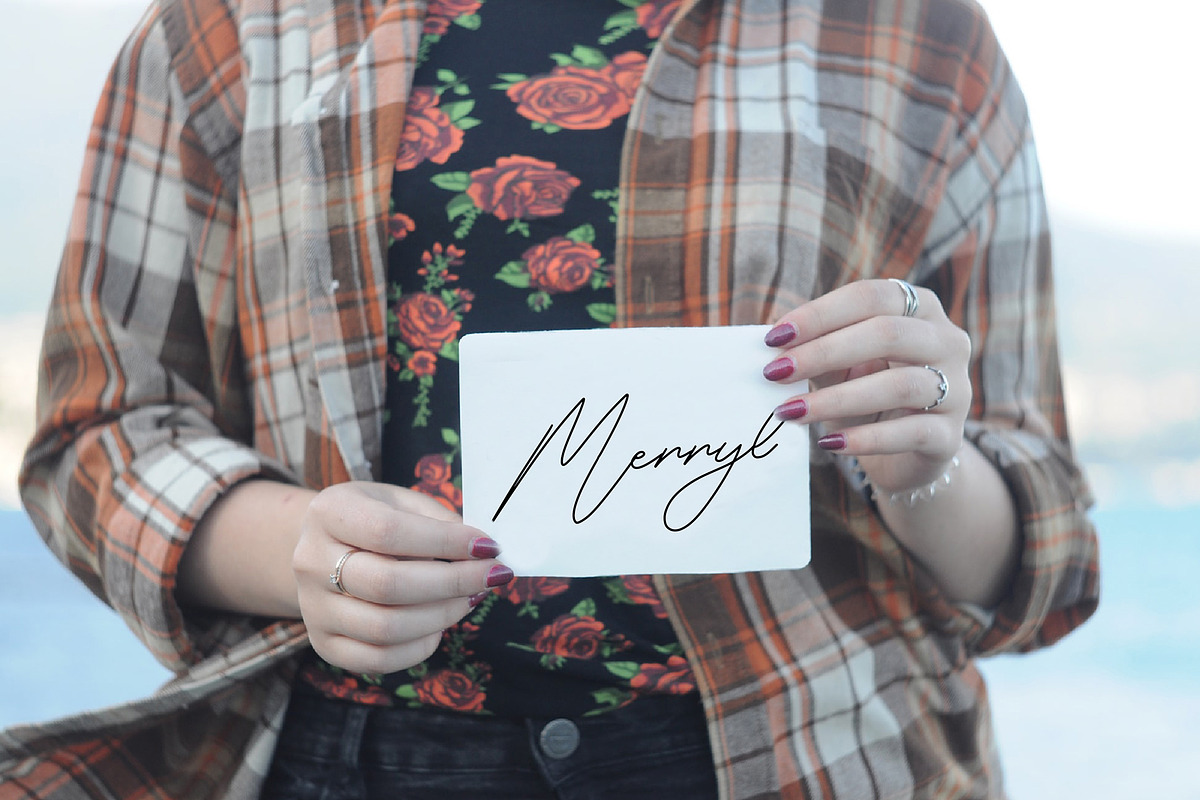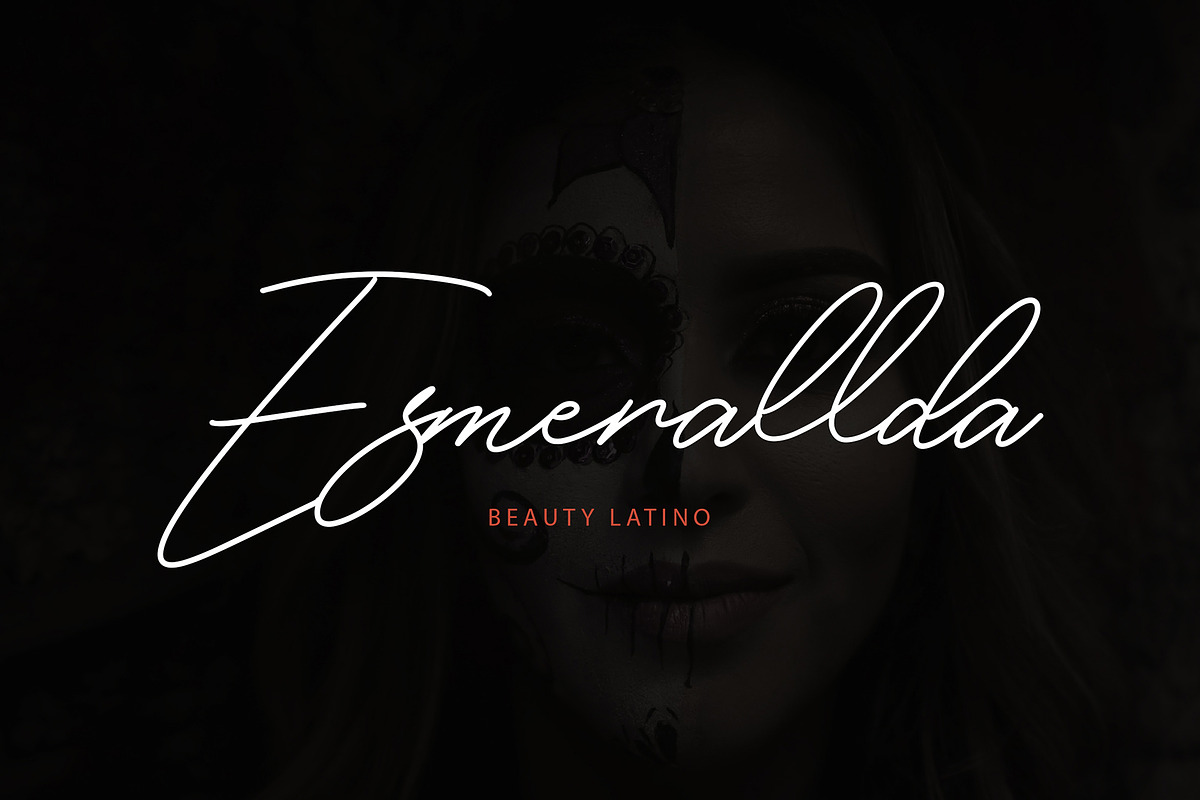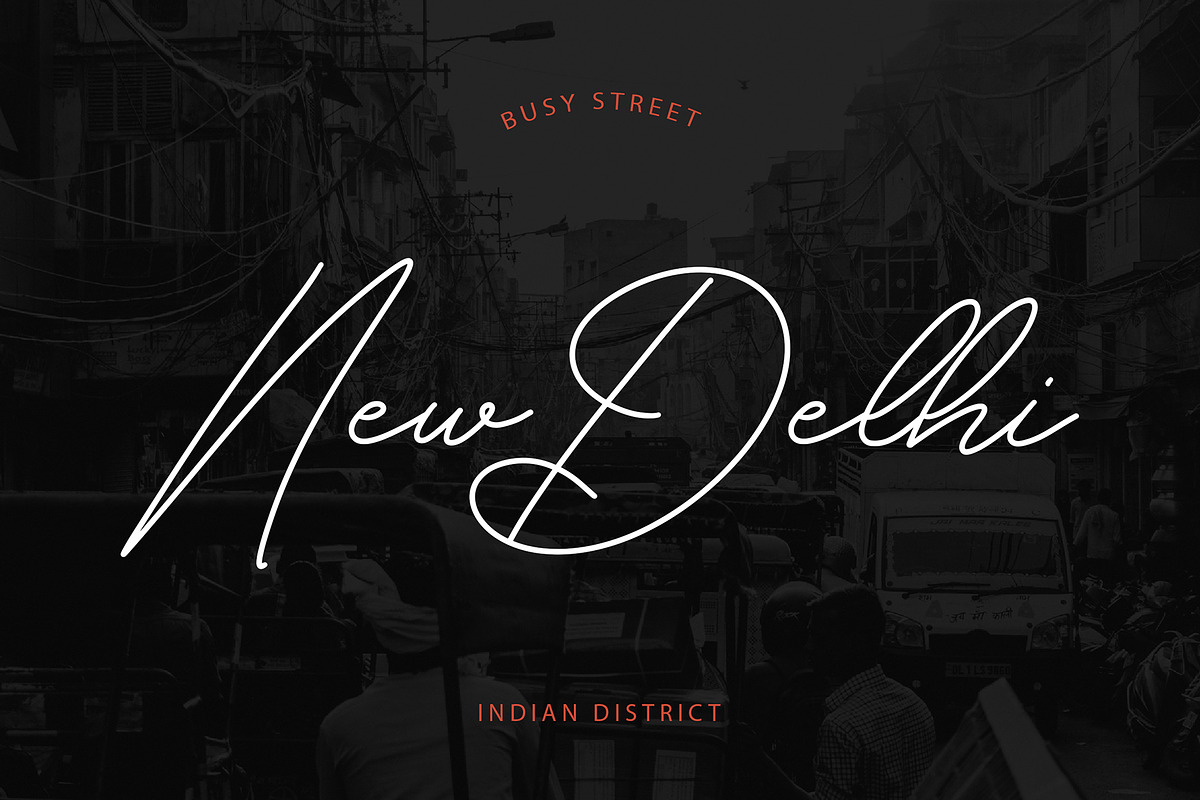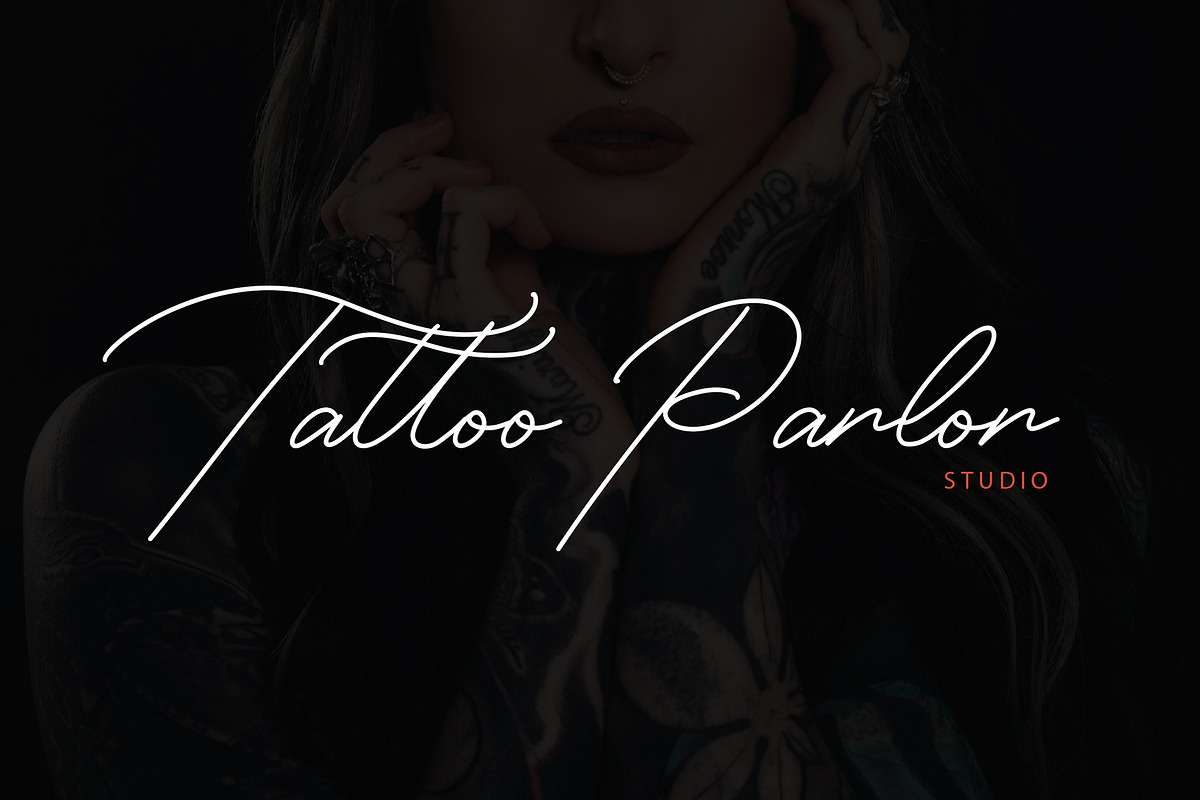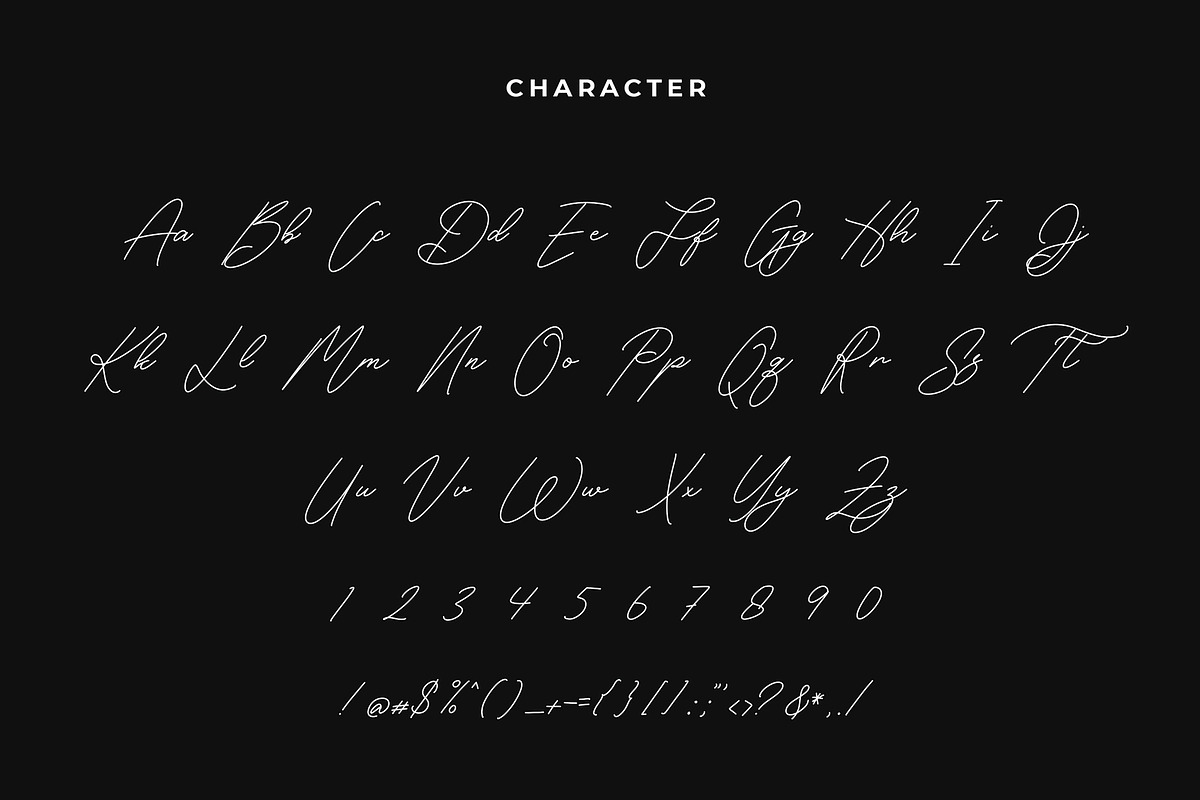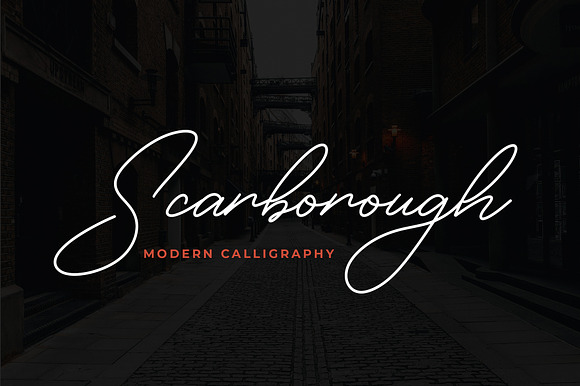
Scarborough Modern Calligraphy Font
Scarborough is a Modern Calligraphy Font with monoline style. Fall in love with its elegantly playful nature!
Scarborough is perfect for branding projects, logo, wedding designs, social media posts, advertisements, product packaging, product designs, label, photography, watermark, invitation, stationery and any projects.
Scarborough Modern Calligraphy Font by Formatika Studio fits naturally into Branding, posters, packaging, typography.